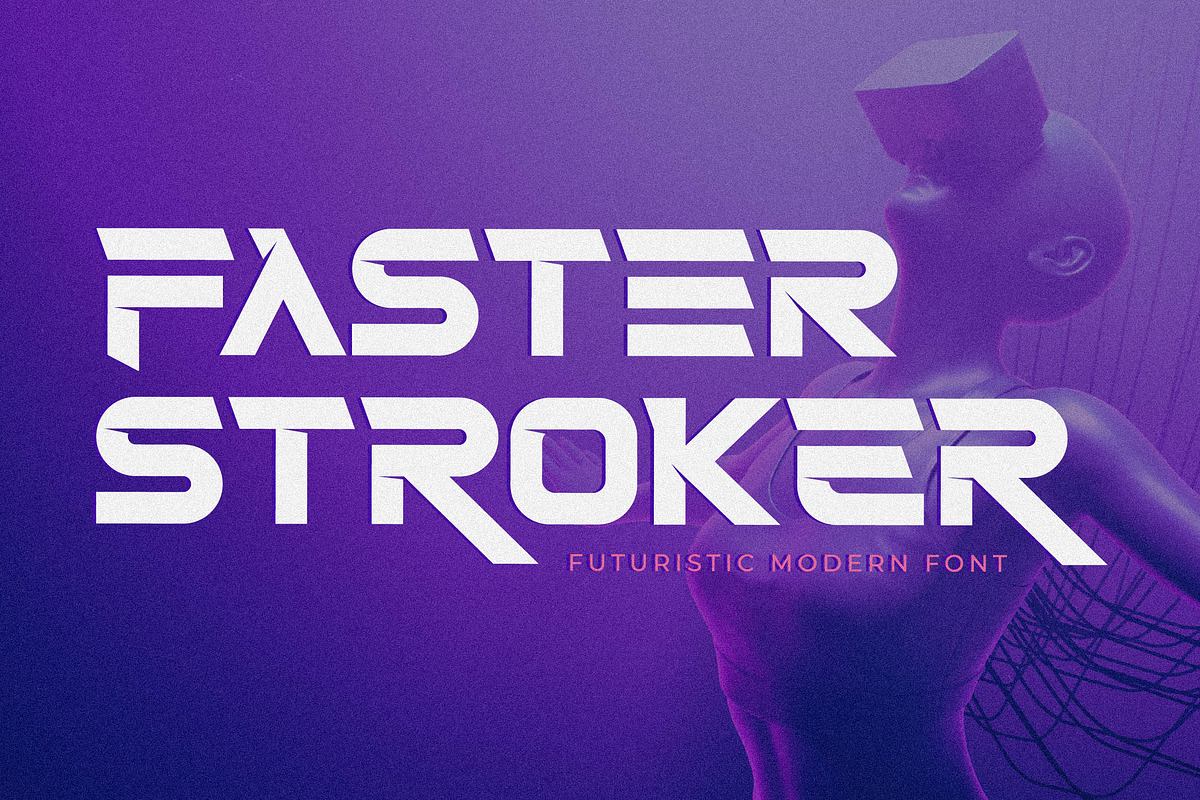
Take your designs to light speed with Faster Stroker Futuristic Font Free Download. This sleek, high-tech typeface is built for the future—perfect for sci-fi projects, tech branding, esports logos, UI designs, and anything that needs a modern, dynamic edge.
With its sharp angles, clean lines, and aerodynamic style, Faster Stroker gives your text an instant boost of innovation and energy. It’s a go-to font for forward-thinking creatives who want to make a bold digital statement.